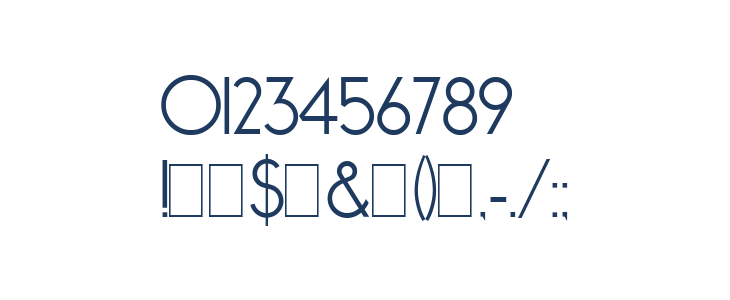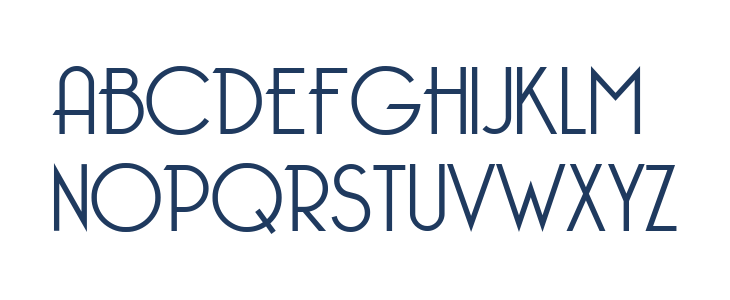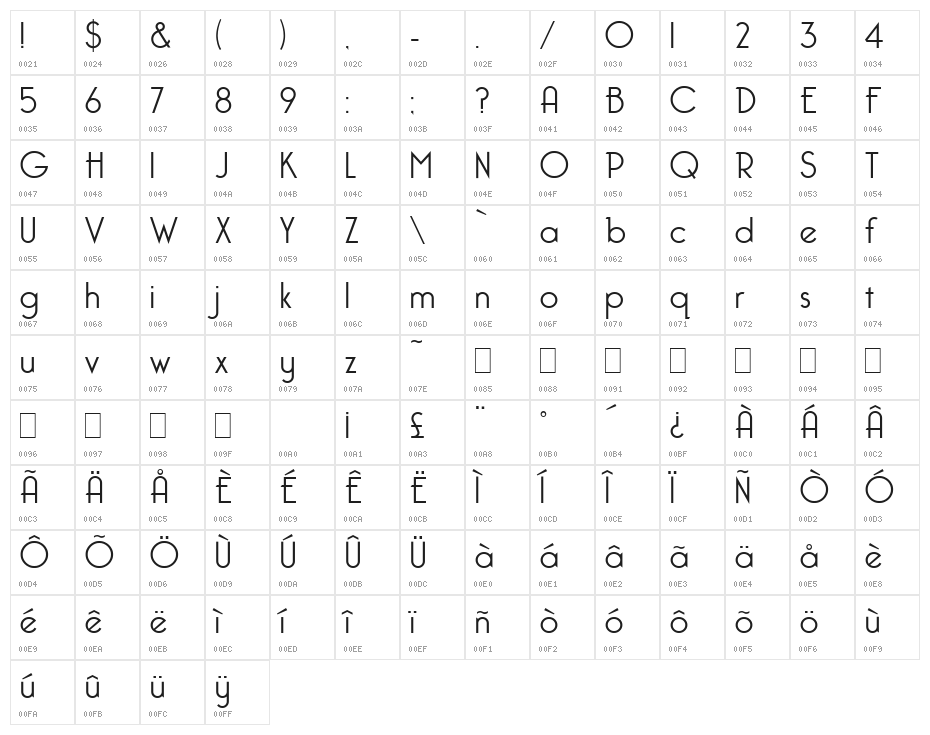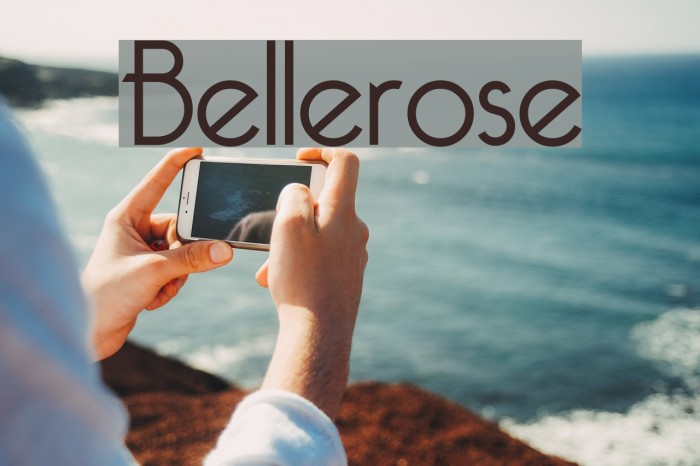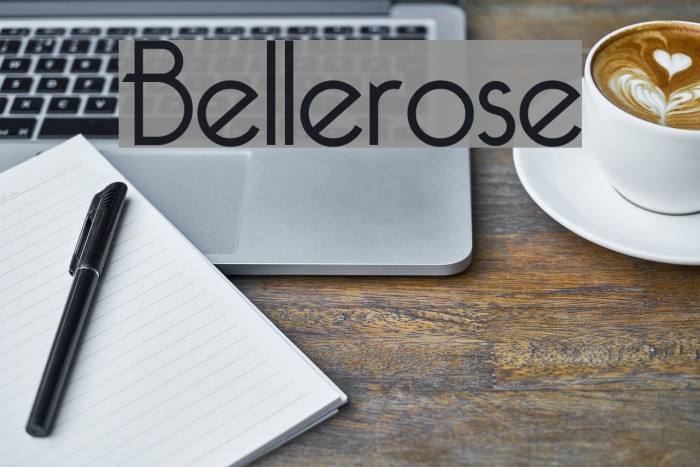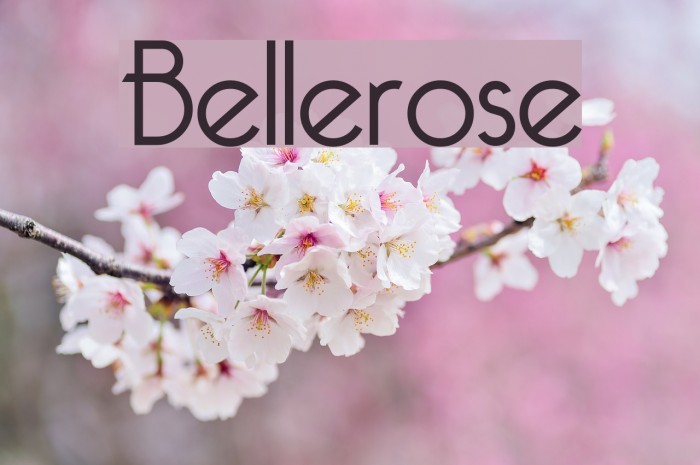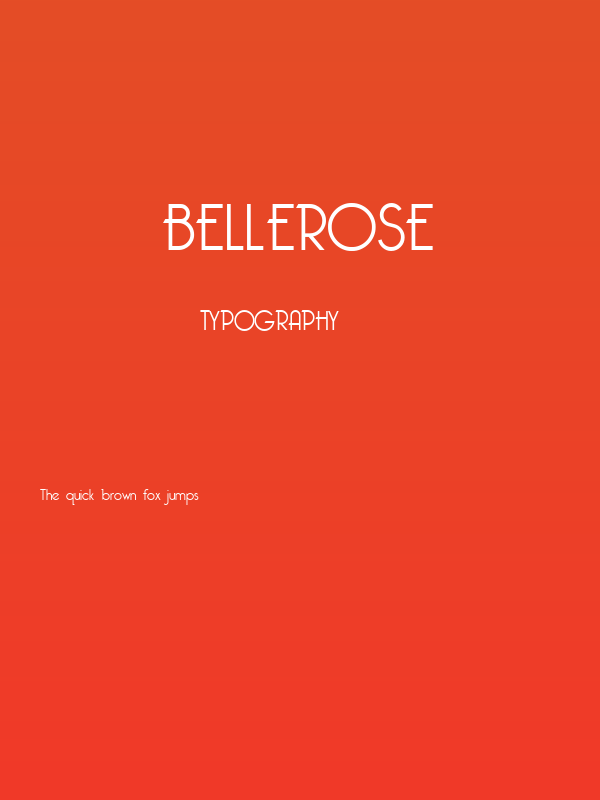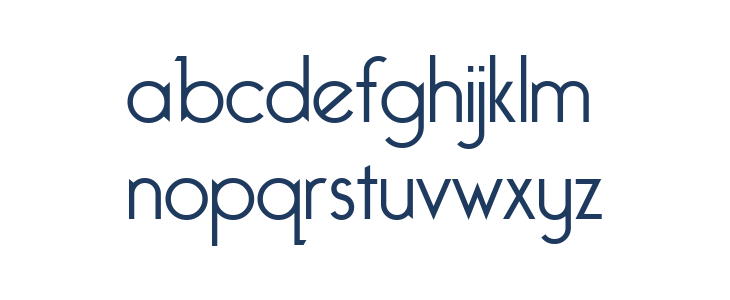
Bellerose Font
Bellerose Description
This font features a clean and modern aesthetic with geometric influences. The characters are well-balanced with a consistent stroke width, giving it a harmonious appearance. The uppercase letters are bold and striking, while the lowercase letters maintain a softer, more approachable look. The numerals are clear and easy to read, making them suitable for various applications. Special characters are designed to complement the overall style, ensuring versatility in usage. The font's simplicity and elegance make it ideal for contemporary design projects.
| Proposed Projects | Ideal for branding, editorial design, advertising, and digital interfaces. |